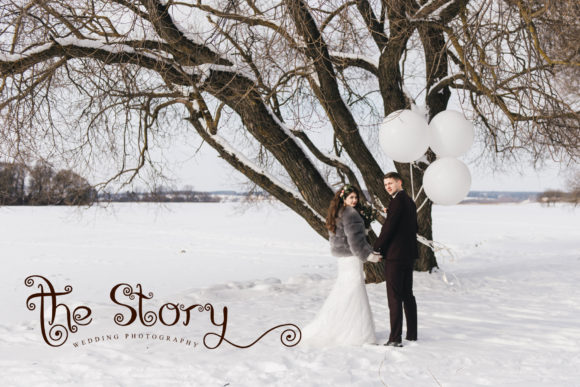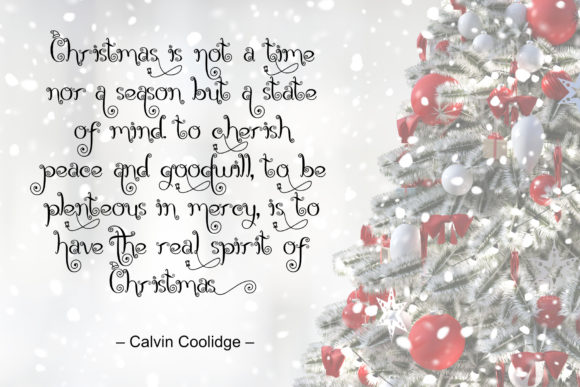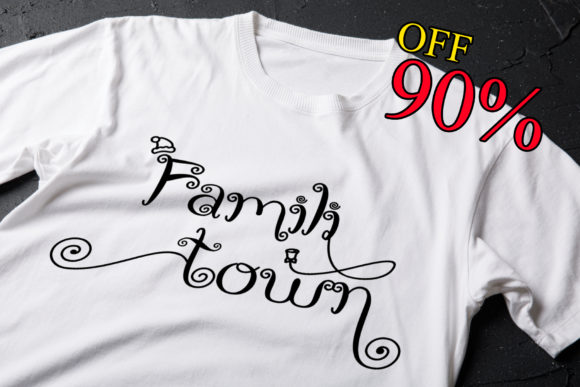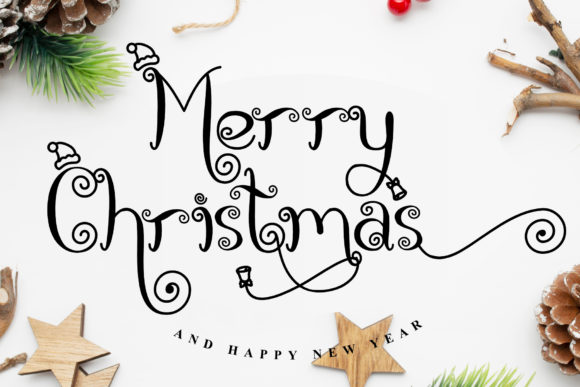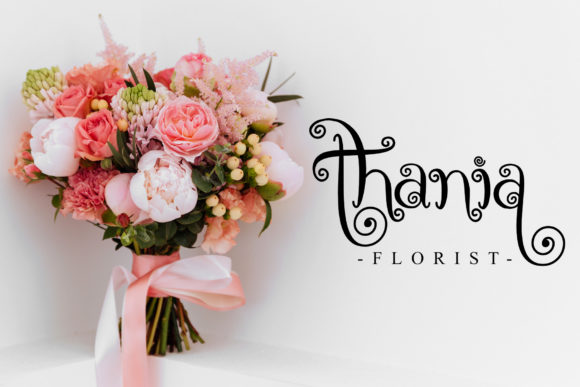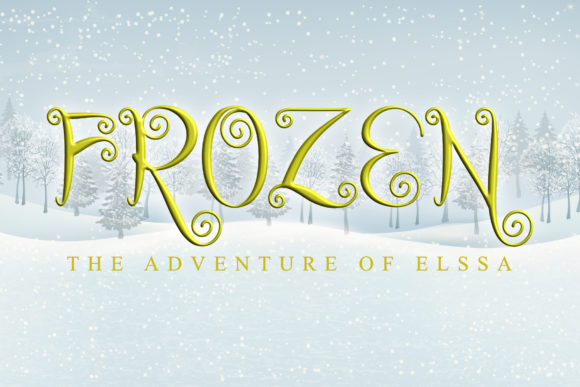
Introduction to Christmas Thania Font Font
Fonts play a crucial role in design, and the Christmas Thania Font font is a typeface that brings both character and versatility to any project. Whether you’re working on a branding project, a website, or a print design, the Christmas Thania Font font offers a unique style that can elevate your work.
Christmas Thania is a friendly, fresh, rich, and elegant handwritten font.
It is ideal for holiday-themed greeting cards and for any crafting project that requires a romantic touch .
Key Features of Christmas Thania Font Font
Why Choose Christmas Thania Font Font?
The Christmas Thania Font font is more than just a typeface – it’s a design tool that helps you communicate your message with style and clarity. Its unique character set and versatile design make it suitable for a wide range of applications, from elegant invitations to bold headlines.
With its carefully crafted letterforms and balanced proportions, the Christmas Thania Font font ensures readability and visual appeal across all mediums.
What makes Christmas Thania Font font special?
The Christmas Thania Font font stands out with its unique design, exceptional readability, and versatility across various design applications.